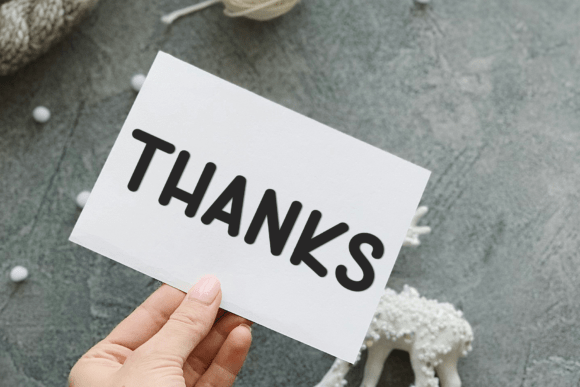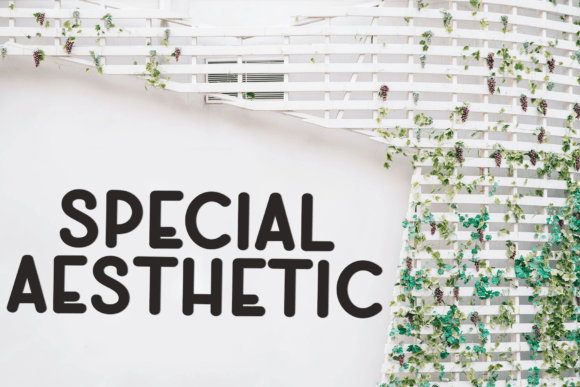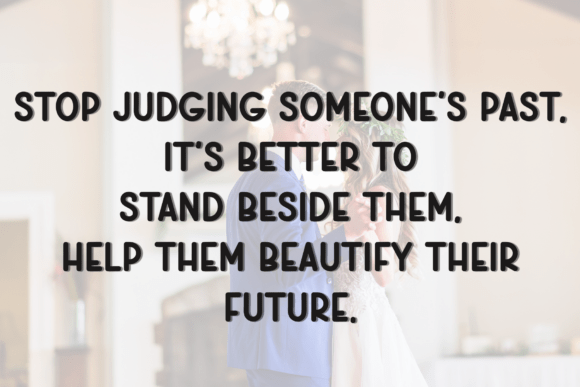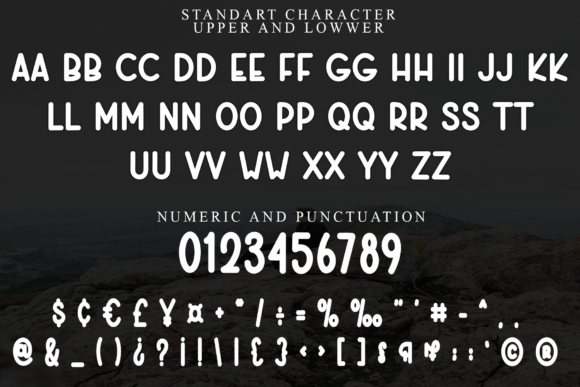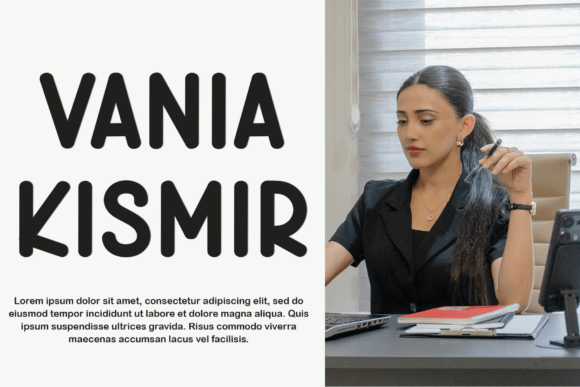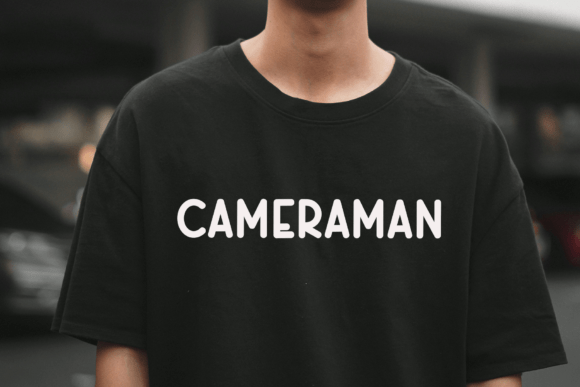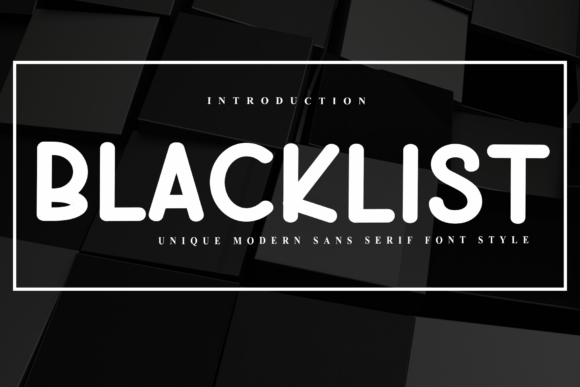
Introducing Blacklist Font: A Festive and Merry Typeface for the Holiday Season
The holiday season is upon us, and what better way to get into the spirit than with a font that’s as festive and merry as Blacklist Font? This decorative typeface is designed to capture the magic and enchantment of the holiday season, making it perfect for a wide range of design projects, from greeting cards and gift tags to holiday-themed crafts and decorations.
A Font that Embodies the Spirit of the Season
Blacklist Font is more than just a typeface – it’s an experience. With its whimsical flair and decorative elements, this font adds a touch of nostalgia and cheer to any design project. Whether you’re a designer, crafter, or DIY enthusiast, Blacklist Font is the perfect way to bring a little bit of holiday magic to your work.
Blacklist Font is specifically designed with the holiday season in mind. Its festive and merry design makes it perfect for a wide range of projects, including:
- Greeting cards: Create beautiful and unique holiday greeting cards that will stand out from the crowd.
- Gift tags: Add a personal touch to your gifts with custom gift tags featuring Blacklist Font.
- Holiday-themed crafts: From decorations to DIY projects, Blacklist Font is the perfect addition to any holiday craft.
One of the best things about Blacklist Font is that it’s PUA (Private Use Area) encoded, which means that you can access all of the amazing glyphs and ligatures with ease. This makes it easy to get creative with your designs and add a little bit of extra magic to your work.
Key Features of Blacklist Font
- Festive and merry design perfect for the holiday season
- Decorative elements and whimsical flair add a touch of enchantment to your designs
- Perfect for greeting cards, gift tags, and holiday-themed projects
Why Choose Blacklist Font?
With so many fonts to choose from, why should you choose Blacklist Font for your holiday design projects? Here are just a few reasons:
- Unique and eye-catching design that will make your projects stand out
- Easy to use and PUA encoded for simple access to glyphs and ligatures
- Perfect for a wide range of holiday-themed projects
Get Creative with Blacklist Font
Blacklist Font is the perfect way to add a little bit of holiday magic to your designs. Whether you’re a seasoned designer or a DIY enthusiast, this font is sure to inspire your creativity and help you create beautiful and unique holiday projects.